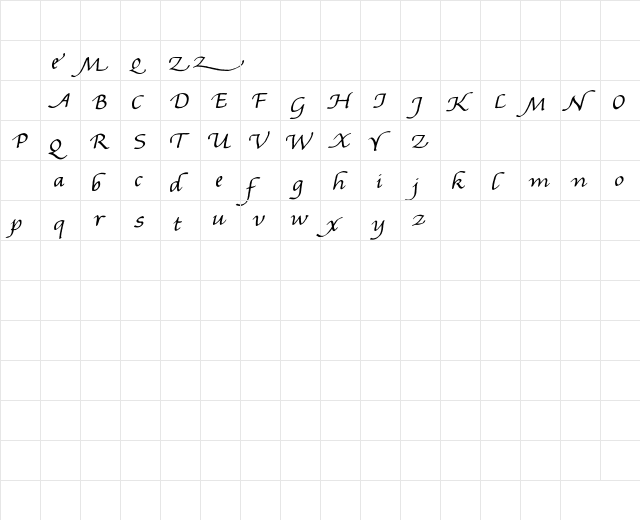
Complete Gourdie Handwriting Regular glyph index. Displaying only characters natively supported by Gourdie Handwriting Regular font.
Gourdie Handwriting flows with the natural rhythm of handwritten lettering, making it ideal for designs that call for warmth and personal expression.
Font Pairing: Combine Gourdie Handwriting with a simple geometric sans for maximum contrast - the tension between flowing curves and clean structure is a classic typographic pairing.
Pro Tip: Use Gourdie Handwriting for short runs of text - names, titles, or taglines. Extended body copy in script faces tires the eye quickly.